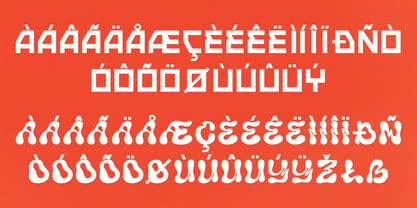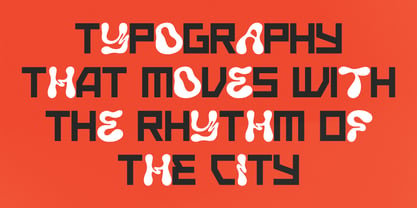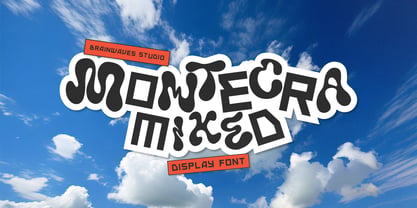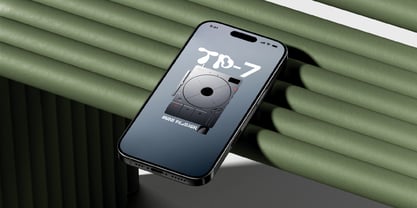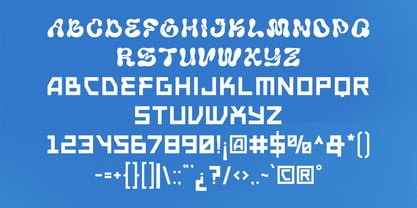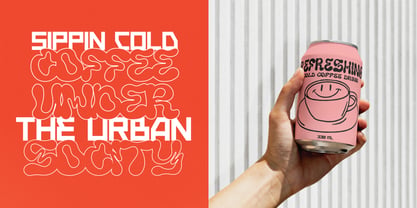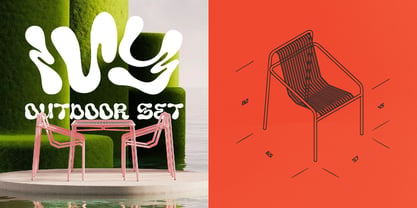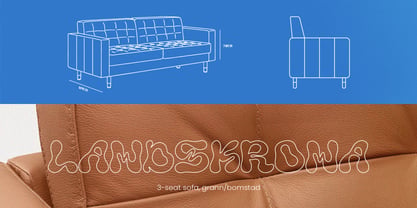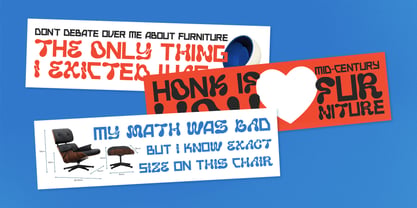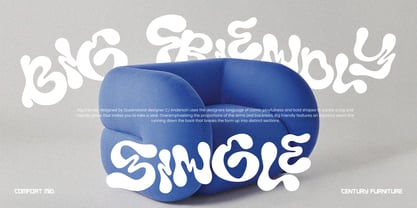
Montecra Mixed
by Brainwaves Studio
The Montecra Mixed Font Family was designed by Lucky Fitriadi and published by Brainwaves Studio. Montecra Mixed contains 2 styles and family package options.
Montecra Mixed is not your typical display font. It’s weird in the best way — a bold fusion of bubbly curves and sharp angles that instantly grabs attention. This typeface was built for creatives who want their work to feel fun, expressive, and totally unique.
From experimental posters and music artwork to edgy product packaging or Instagram visuals, Montecra Mixed brings energy and personality into every letter. It doesn’t just sit on the page — it moves.
Let your typography break the mold, mix things up, and feel alive.